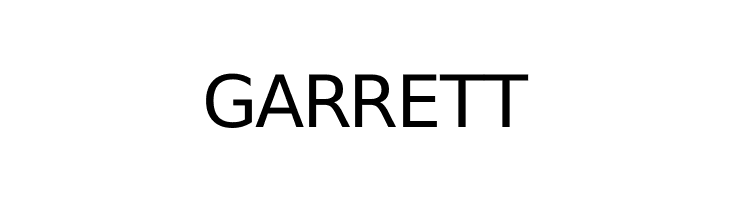
Silhouetted action poses of women, not a font.
A bold, modern font with rounded edges and geometric structure.
A bold, angular, and modern font with a dynamic slant.
A bold, outlined font with a modern, slanted design.
A distressed, torn paper-style font with irregular edges and a handmade feel.
A bold, chaotic, and textured font with a graffiti-like style.
A bold, hand-drawn font with irregular, artistic characters.
A bold, geometric font with a futuristic and edgy design.
A graffiti-inspired font with bold, angular strokes and a dynamic, rebellious style.
A bold, modern sans-serif font with geometric influences and high legibility.
A sleek, modern font with thin, elongated characters and a minimalist design.
A modern, light, and geometric sans-serif font with low contrast.
A modern, semi-bold sans-serif font with a clean and balanced design.
A sleek, modern font with thin lines and a minimalist design.
A bold, modern sans-serif font with clean lines and a slightly condensed style.
A sleek, modern font with clean lines and a minimalist aesthetic.
A modern, geometric sans-serif font with a clean and minimalist design.
A modern, geometric sans-serif font with a clean and balanced design.
A modern, geometric sans-serif font with a clean and minimalist design.
A modern, geometric sans-serif font with a clean and versatile design.
A sleek, modern font with thin, clean lines and geometric shapes.
A bold, modern font with sharp, angular lines and a unique flair.
A distressed, grunge-style serif font with a vintage, edgy appearance.
Illustrative dingbat font with boat and ship icons.
Camping and outdoor activity pictogram set with a hand-drawn look.
A decorative font featuring whimsical bear illustrations for each character.